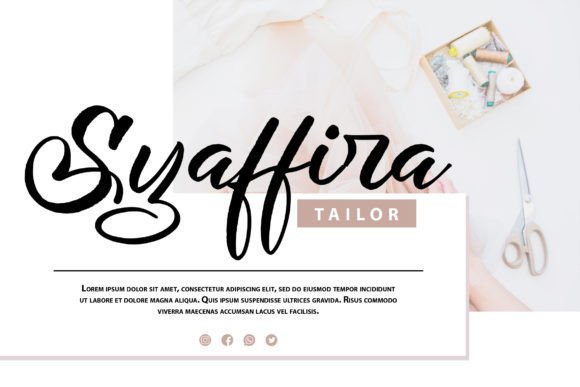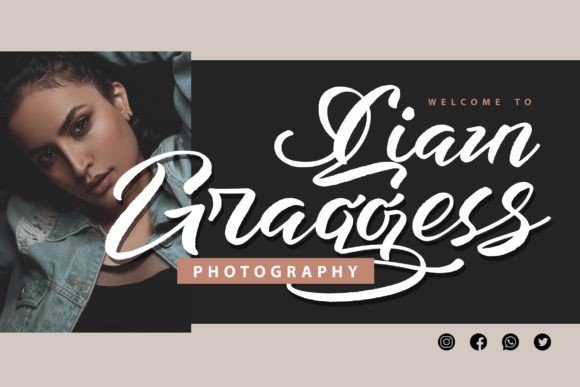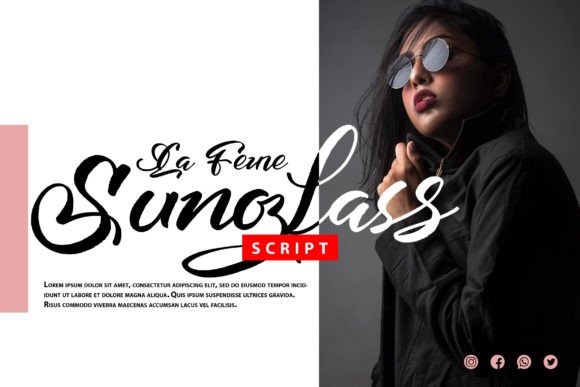
Introduction to Locknessy Font
Have you ever been stuck in a creative rut, unable to find the perfect font to bring your vision to life? For designers, this is a familiar feeling. But what if I told you that there’s a font that can change all that? Enter the Locknessy Font, a stunning handwritten font that’s sure to elevate your design projects.
Imagine you’re working on a wedding invitation, and you need a font that exudes elegance and sophistication. Or perhaps you’re creating a logo for a new business, and you want a font that’s both unique and memorable. Whatever your design project may be, the Locknessy Font is the perfect resource to have in your toolkit.
This beautiful font features a transparent background, making it easy to layer and combine with other design elements. With its high-quality design, it’s a valuable addition to any designer’s arsenal, and it’s available for free download, making it an accessible resource for creative projects of all kinds.
Key Features of Locknessy Font
- High-quality design resource with a transparent background, perfect for creative projects.
- Features a unique, modern design that sets it apart from other fonts, making it perfect for designers looking for a distinctive look.
Honest Review: Locknessy Font
I recently stumbled upon the Locknessy Font and I must say, it’s been a game-changer for my creative projects. The high quality of this design resource is evident in its crisp lines and smooth texture.
- What works well: ✨ The font’s versatility makes it suitable for a wide range of creative projects, from logos to typography-based art. The transparent background allows for seamless integration with any design.
- What works well: ✨ The free download option is a huge plus, making it accessible to designers of all levels.
However, I did encounter a few limitations. ⚠️ The font’s complexity can be overwhelming for beginners, and the lack of a comprehensive user manual can be frustrating.
Overall, I’m impressed with the Locknessy Font. Its high quality and versatility make it a valuable addition to any design resource collection. While it may not be perfect, its strengths far outweigh its limitations.
Tips for Getting the Most Out of Locknessy Font
Experiment with different font sizes, colors, and styles to create unique and eye-catching designs. Use the transparent background feature to add depth and dimension to your text elements.
Use the Locknessy Font for branding and visual identity projects, such as logos, business cards, and letterheads. You can also use it for creative projects like infographics, posters, and social media graphics.
Alternatives to Locknessy Font
Montserrat Font is a popular, high-quality sans-serif font designed for digital interfaces. It features a clean, modern design that works well with transparent backgrounds and is perfect for creative projects requiring a sleek, urban feel.
Compared to Locknessy Font, Montserrat Font is more versatile and suitable for a wider range of design applications. While Locknessy Font is ideal for vintage or distressed designs, Montserrat Font excels in modern and minimalist creative projects.